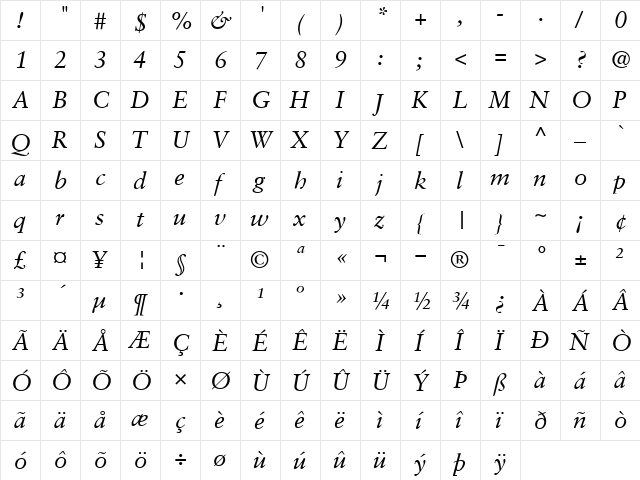
12Sabon*13232 RomanItalic Font Preview
12Sabon*13232 RomanItalic
Design Context for 12Sabon*13232 Typeface
12Sabon*13232 is a composed and adaptable typeface that performs quietly and consistently across a wide range of design contexts. Its italic angle brings a sense of urgency and motion to the letterforms.
Pro Tip: Use 12Sabon*13232 for emphasis, pull quotes, and subheadings where its slanted energy can add rhythm to the layout.